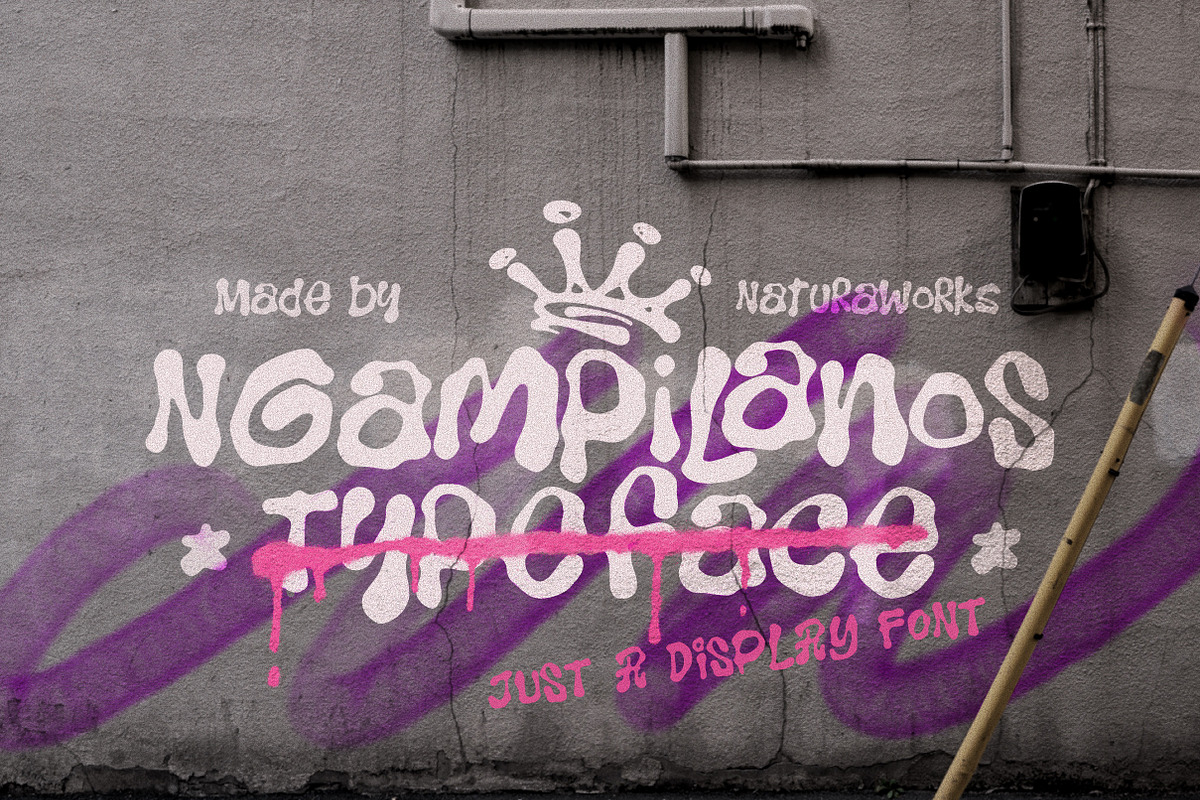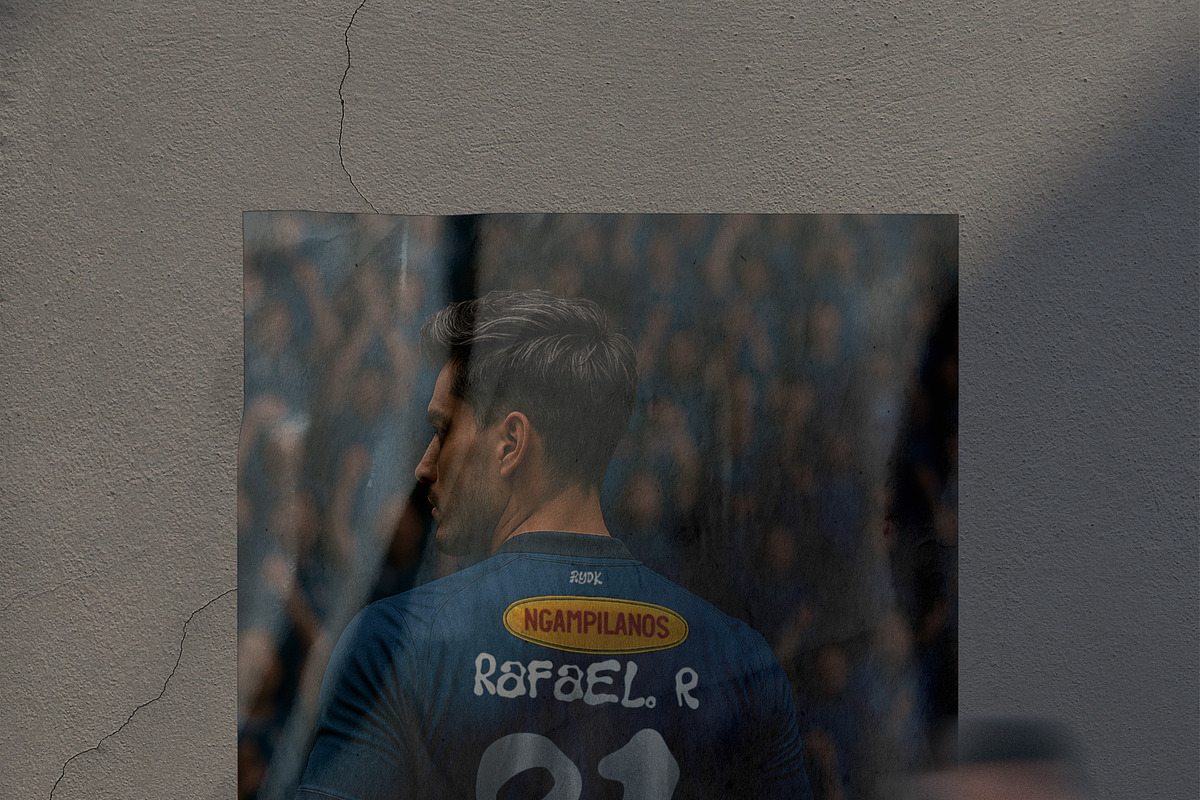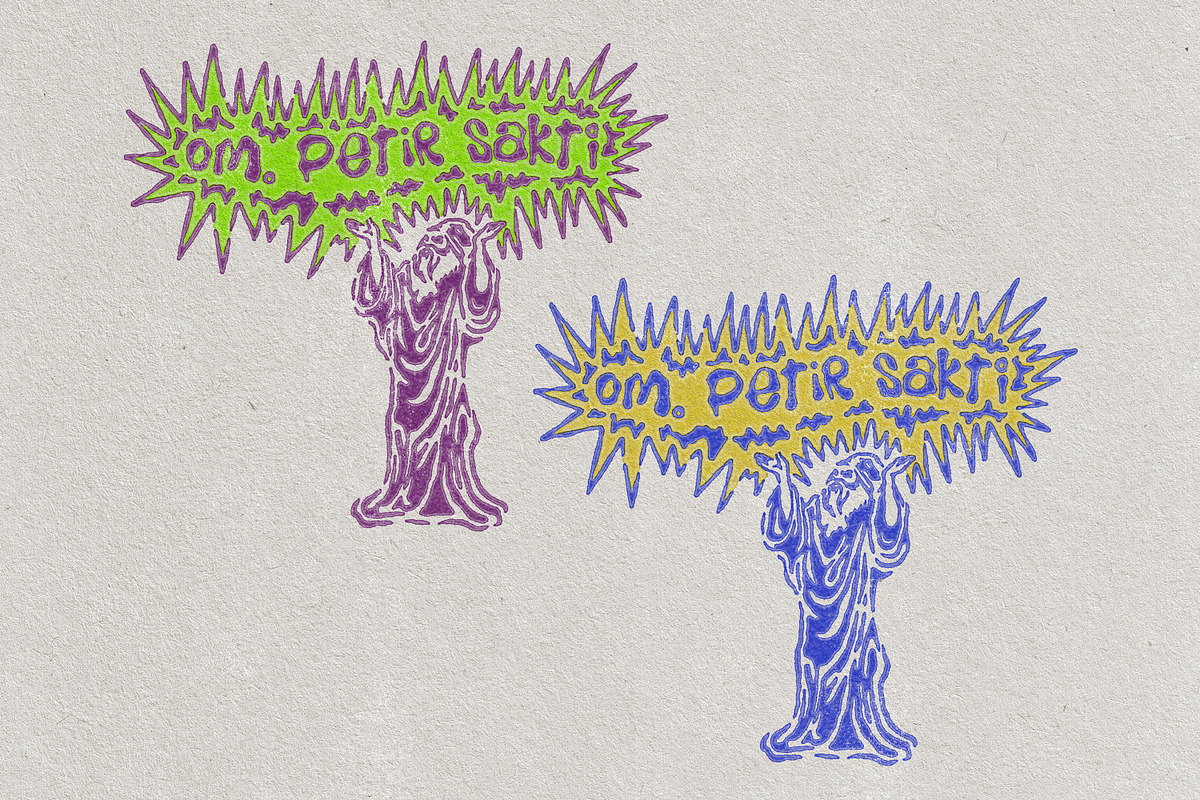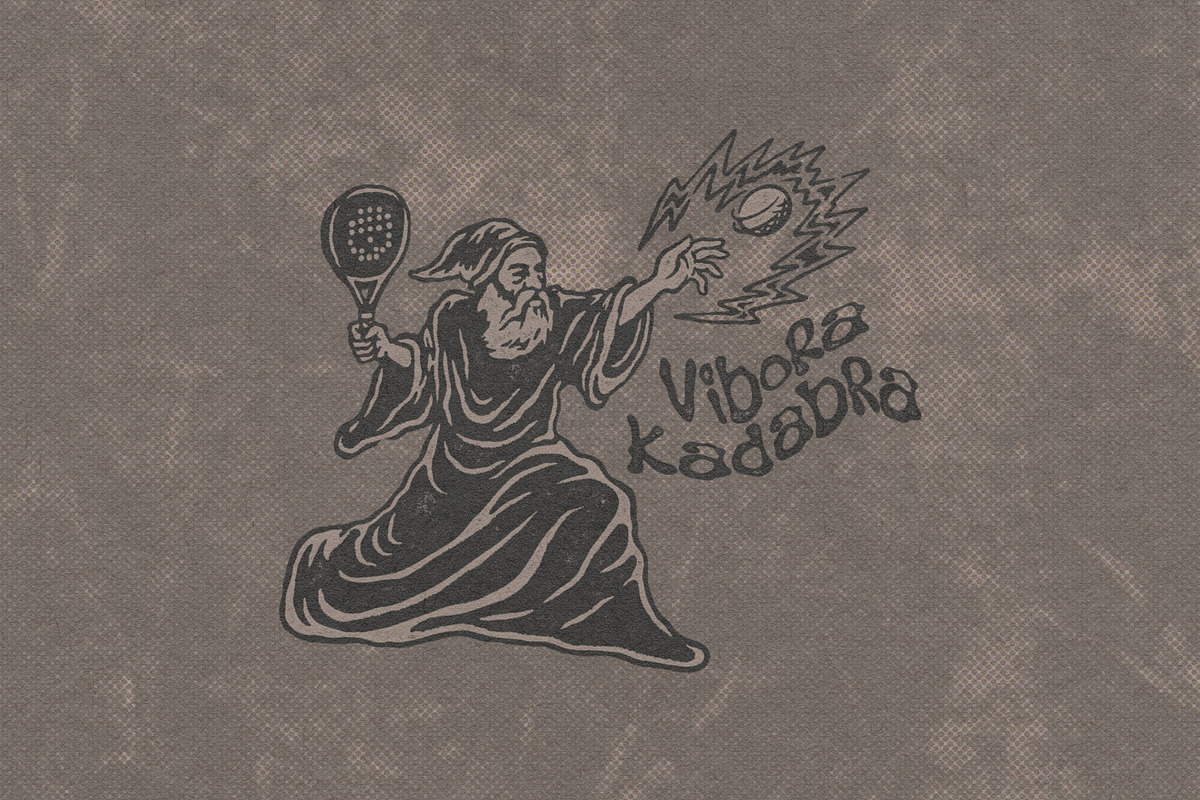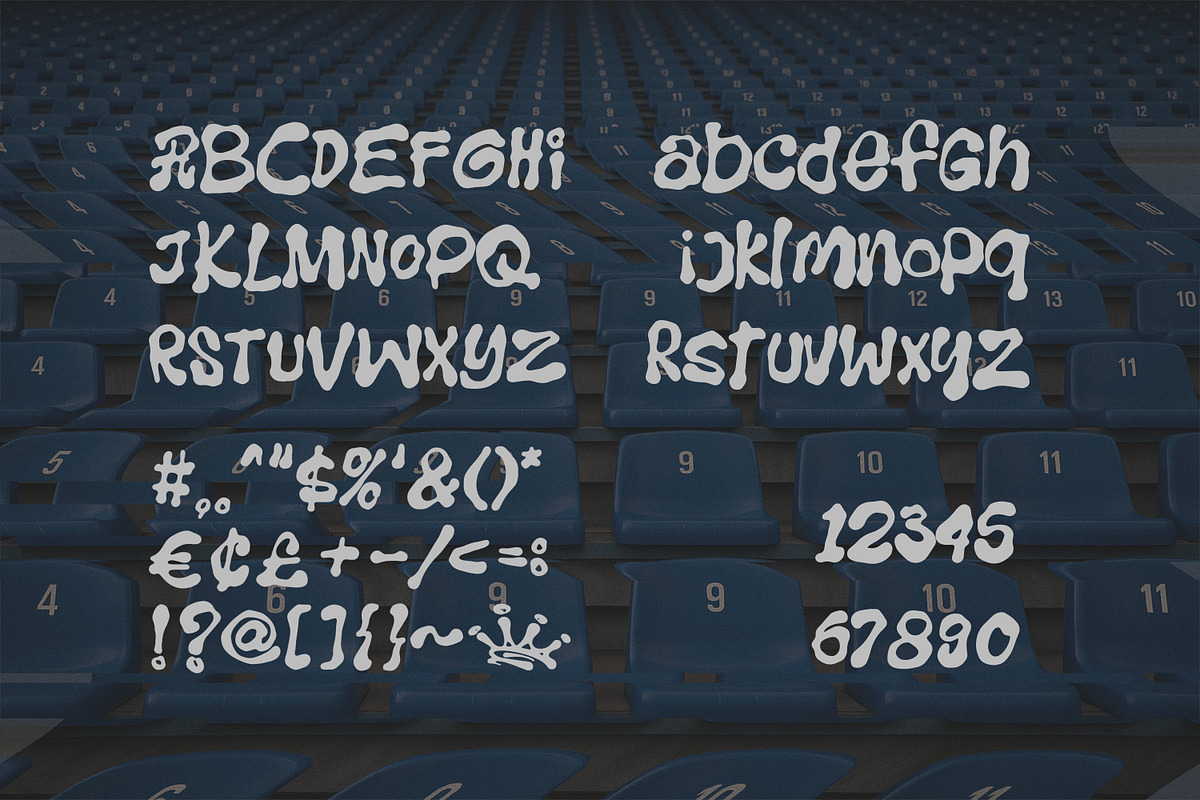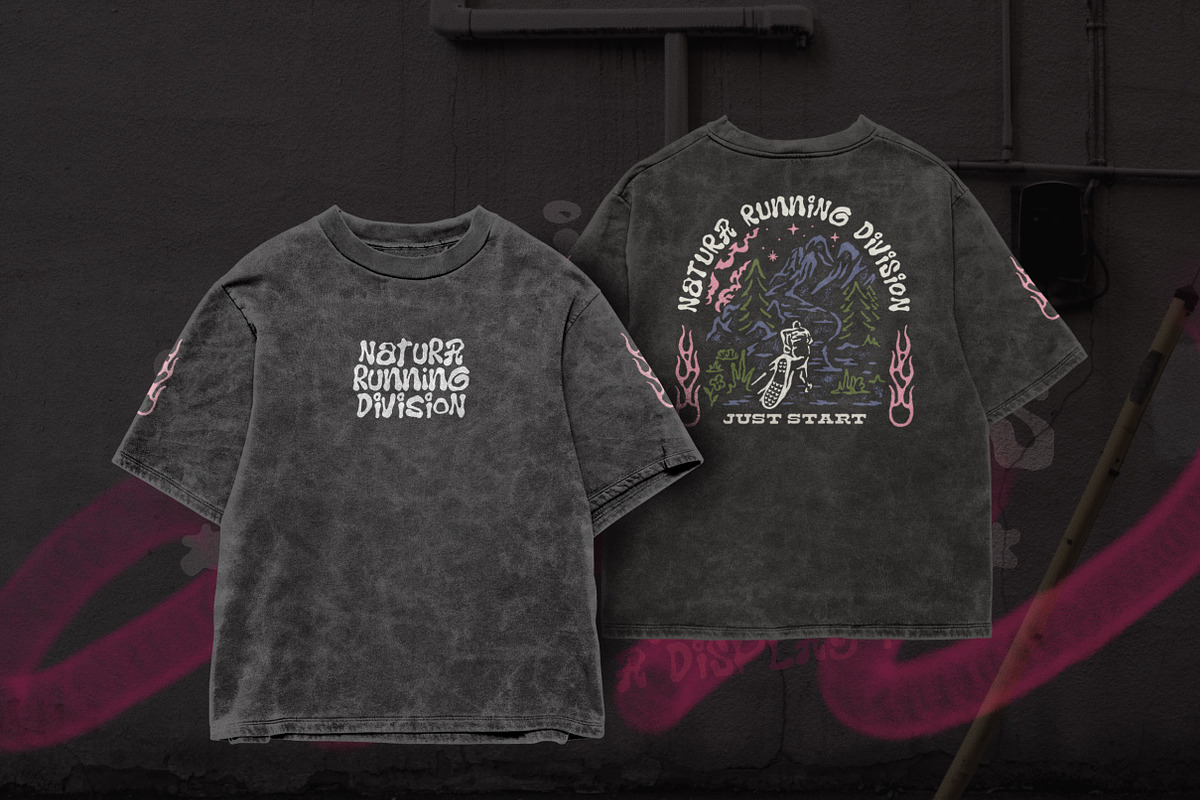
NGAMPILANOS TYPEFACE
INTRODUCING
NGAMPILANOS TYPEFACE. Is a font inspired by Graffiti Tagging fonts. Very fit and easy to make your awesome product, create label design, logo design, badge design, t-shirt design, posters, greeting cards, letterheads or anything looks like vintage and hand drawn vibes. Also you will get some random illustrations and some editable badge designs. Hope you like it!